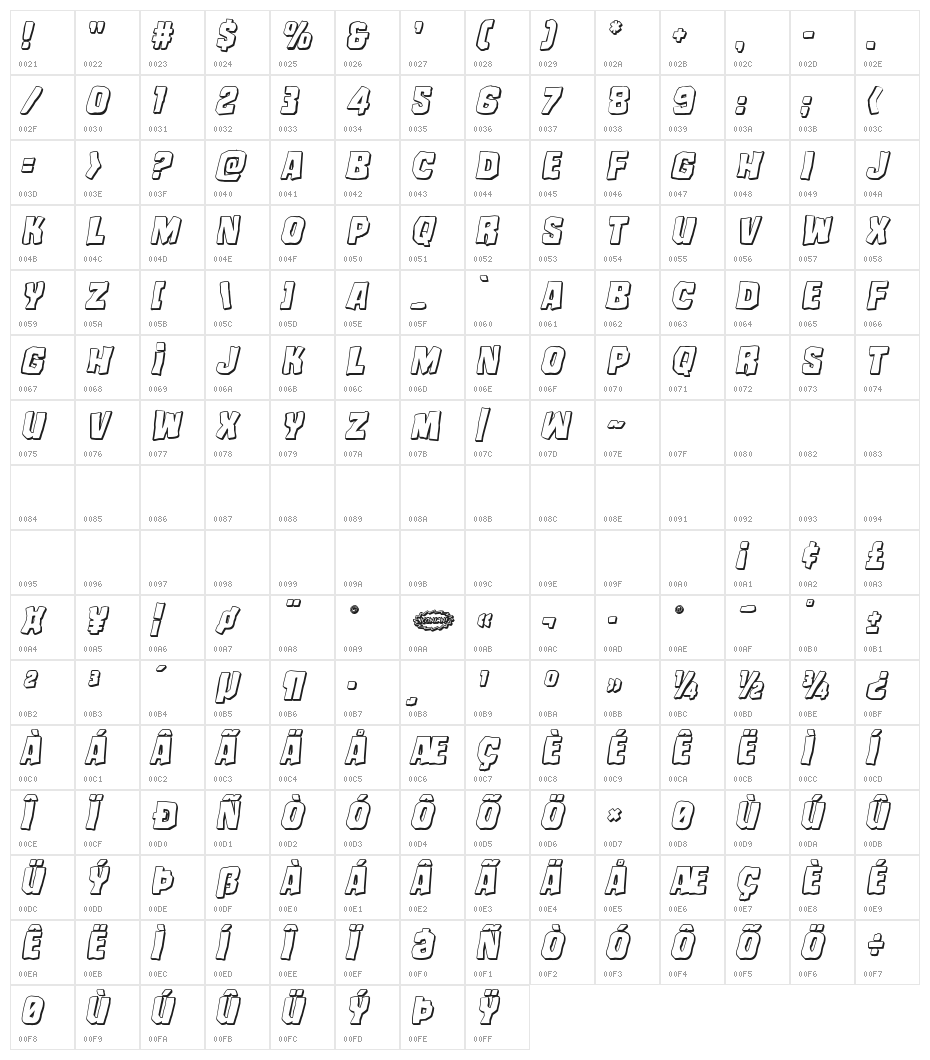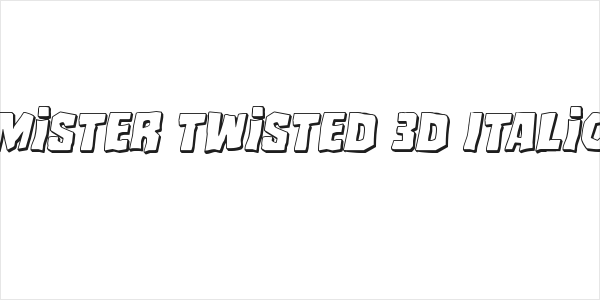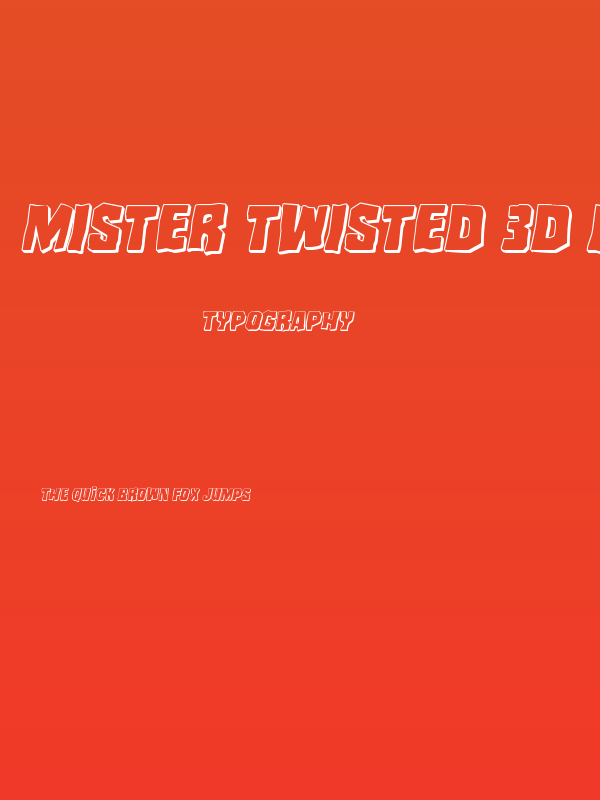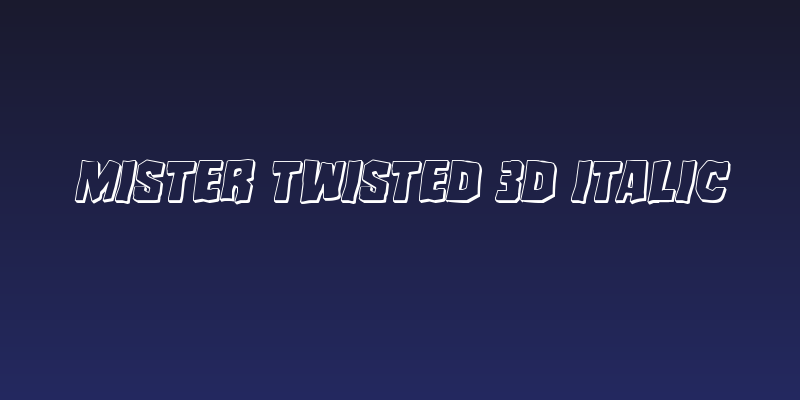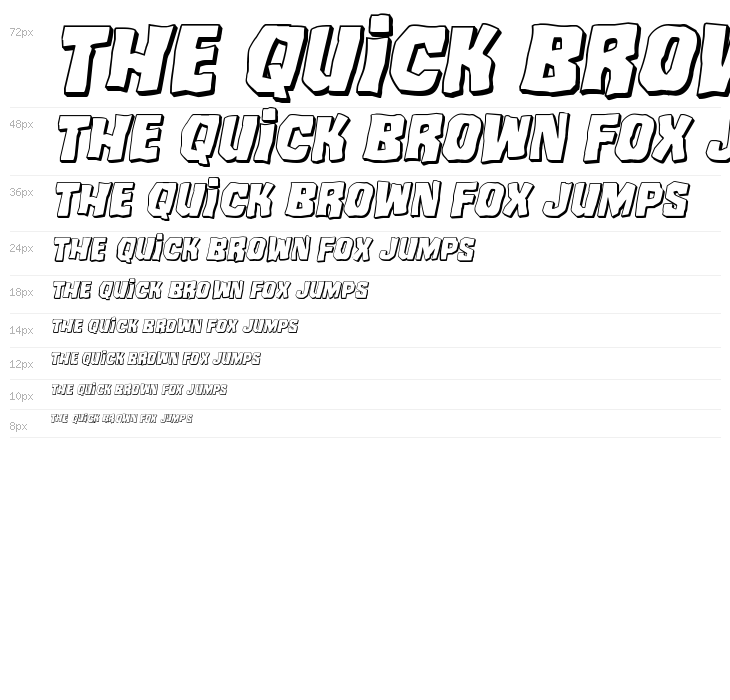
Mister Twisted 3D Italic Font
Mister Twisted 3D Italic Description
This font features a bold, three-dimensional appearance with a playful and dynamic twist. The characters are italicized, giving them a sense of movement and energy. Each letter is outlined, enhancing the 3D effect and making the text stand out. The font is highly stylized, with a cartoonish and fun vibe, making it ideal for creative and informal projects. The uppercase and lowercase letters maintain a consistent style, and the numbers and special characters are designed to match the overall aesthetic.
| Proposed Projects | Ideal for comic book titles, children's book covers, playful posters, and eye-catching advertisements. |